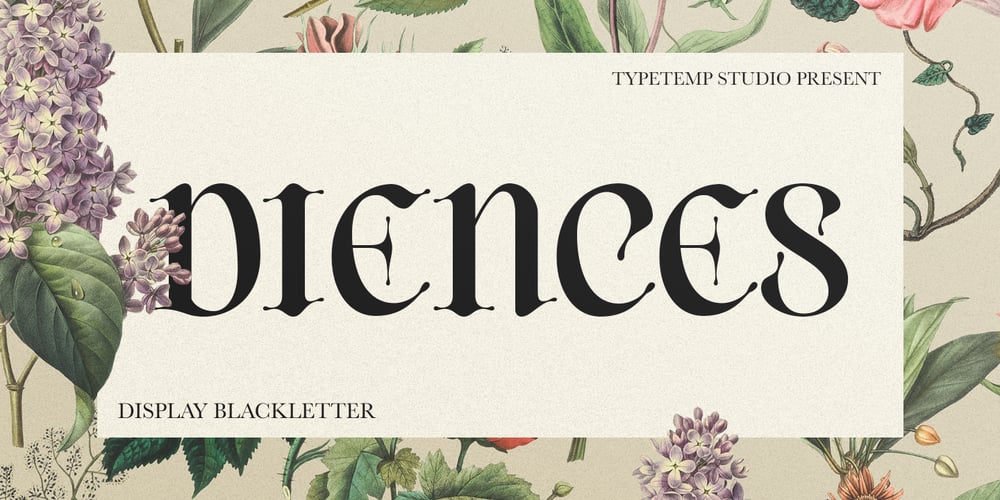
Diences Blackletter Font Font Family was designed by Haris Purnama Putra, Egi Ahmad Mufid and published by Typetemp Studio. Diences Blackletter Font contains 1 styles and family package options. is a Display Blackletter Font with an elegant and modern style. Comes with alternates and ligatures, helps to create stunning logos, quotes, posts, branding projects, magazine imagery, poster, and much more.I really hope you’ll get pleasure using Allenoire font and it will be perfect addition to your font collection! Contact me with an inbox message If you have any question. Thank you! Happy Creating.